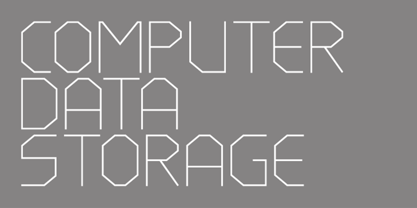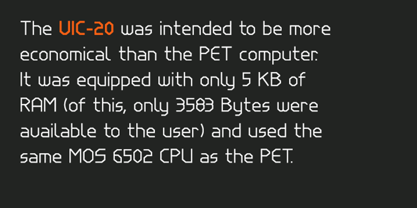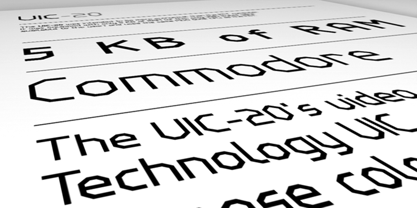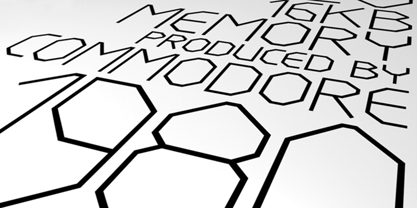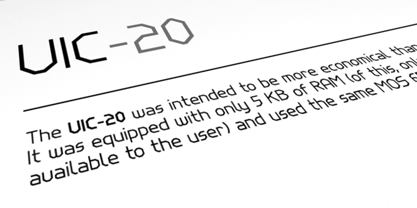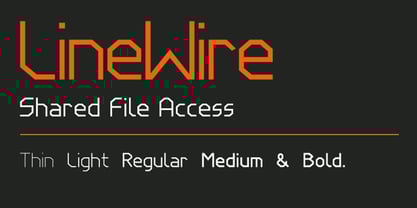
LineWire Font
LineWire Font is perfect for tech startups, digital agencies, modern architecture firms, minimalist branding, contemporary web design, electronic music labels, industrial design portfolios, futuristic marketing campaigns, innovation-focused companies, and cutting-edge app interfaces.
What makes LineWire Font so exciting is its sleek linear construction that perfectly captures the essence of digital precision and technological innovation. This striking typeface combines geometric minimalism with technical sophistication, creating typography that embodies the future of digital design and modern communication.
The LineWire Font family includes thin, light, regular, medium, and bold weights, complete with matching italics and condensed variations, providing designers with a comprehensive system for creating sophisticated technological aesthetics across all applications.
Enter the digital future with LineWire Font Free Download, a precisely engineered typeface that defines excellence in contemporary technological design. This exceptional font represents the convergence of geometric precision and digital innovation, offering designers a powerful tool that instantly communicates technical sophistication and forward-thinking aesthetics.
The meticulously crafted letterforms of LineWire Font feature clean linear construction with optimized digital geometry that creates perfect harmony between technological precision and visual clarity. Each character has been engineered for maximum performance across all digital platforms, ensuring consistent quality and legibility at any resolution or size. The font's minimal aesthetic and technical precision contribute to its futuristic appeal and professional versatility.
Tech companies and digital innovators consistently choose LineWire Font for projects requiring cutting-edge aesthetics and technological credibility. The comprehensive character set includes Latin extended glyphs, technical symbols, mathematical operators, and OpenType features that provide complete support for complex digital applications and international technology projects.
The advanced engineering of LineWire Font ensures flawless performance across all modern platforms and digital environments. Whether developing innovative software interfaces, creating tech startup branding, or designing futuristic marketing materials, this remarkable typeface delivers the precision and visual impact that technology brands need to communicate innovation and reliability.
Transform your technology projects with LineWire Font Free Download. This outstanding typeface brings digital precision and futuristic aesthetics to typography, making it the essential choice for designers who create experiences that define the intersection of technology and contemporary design excellence.